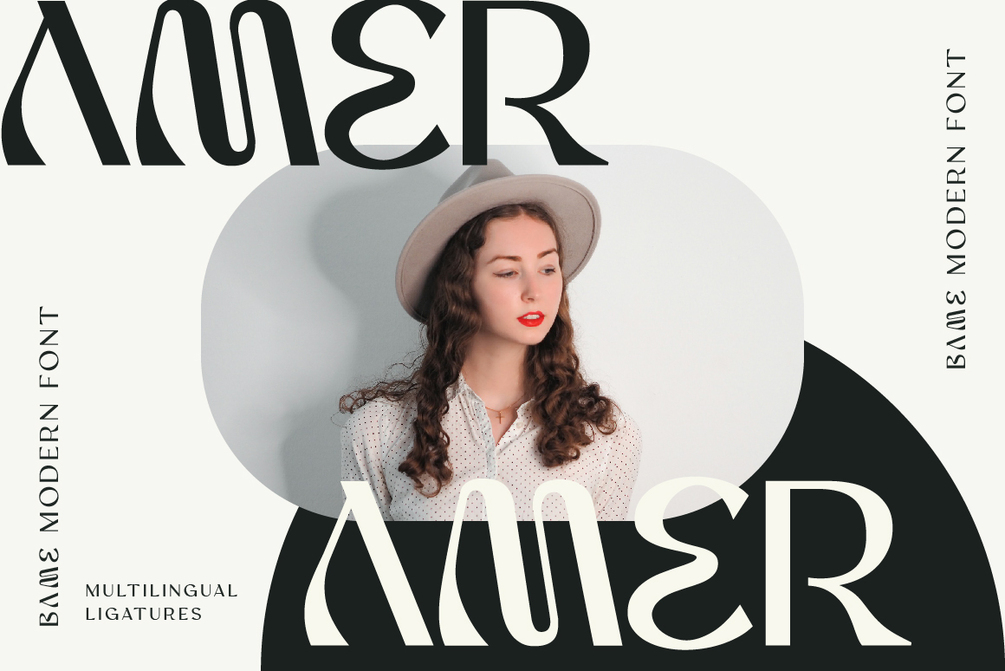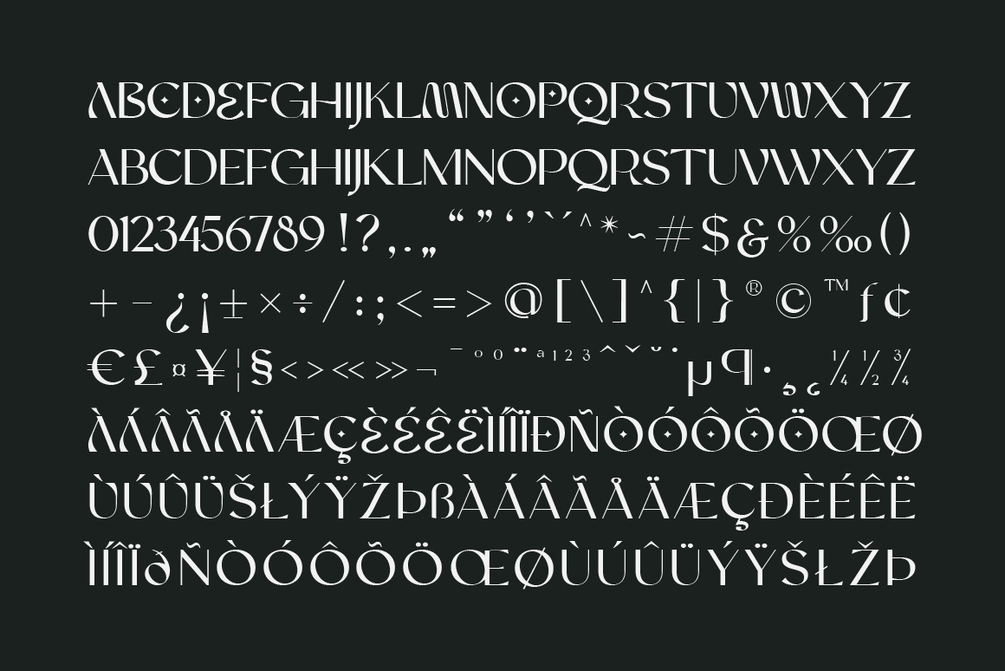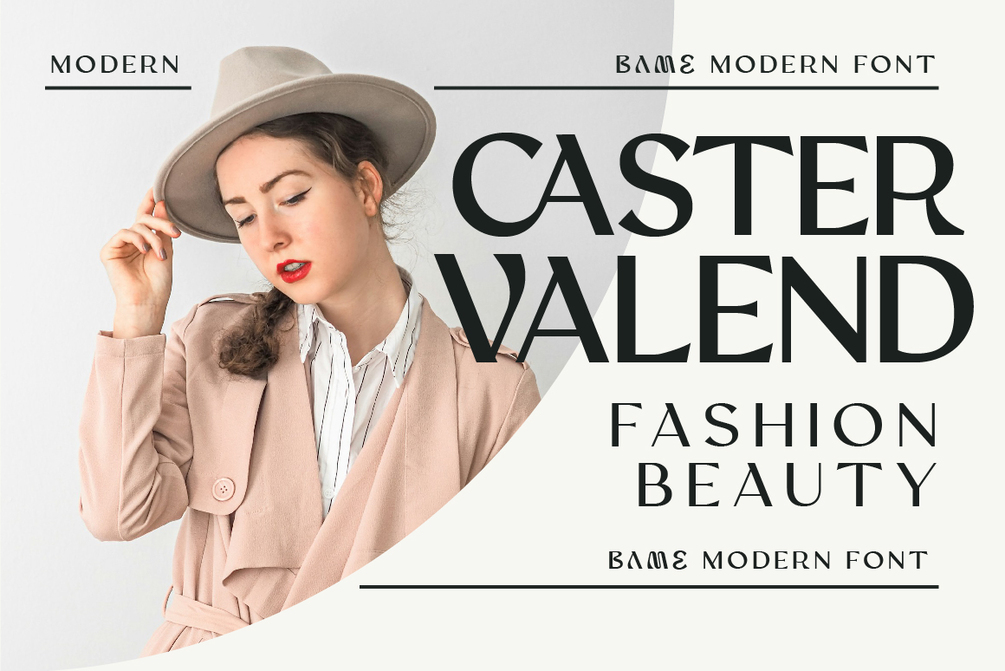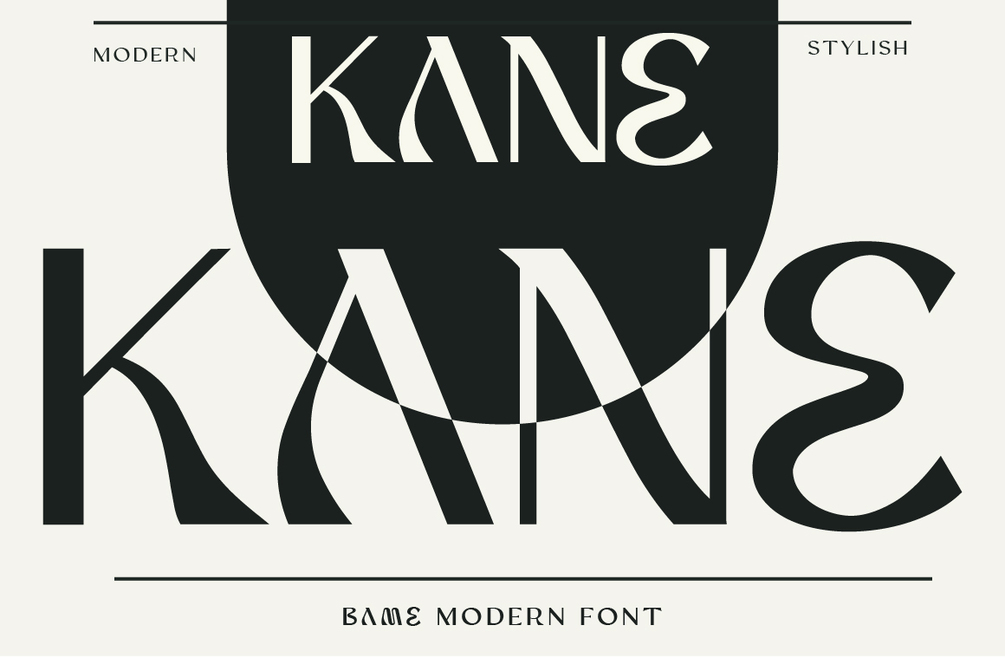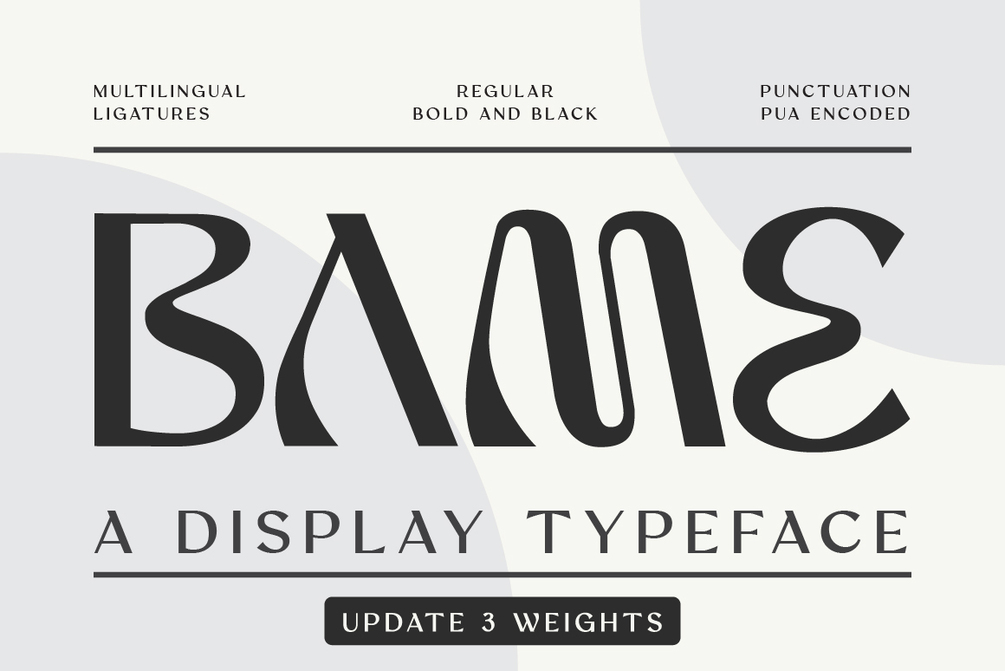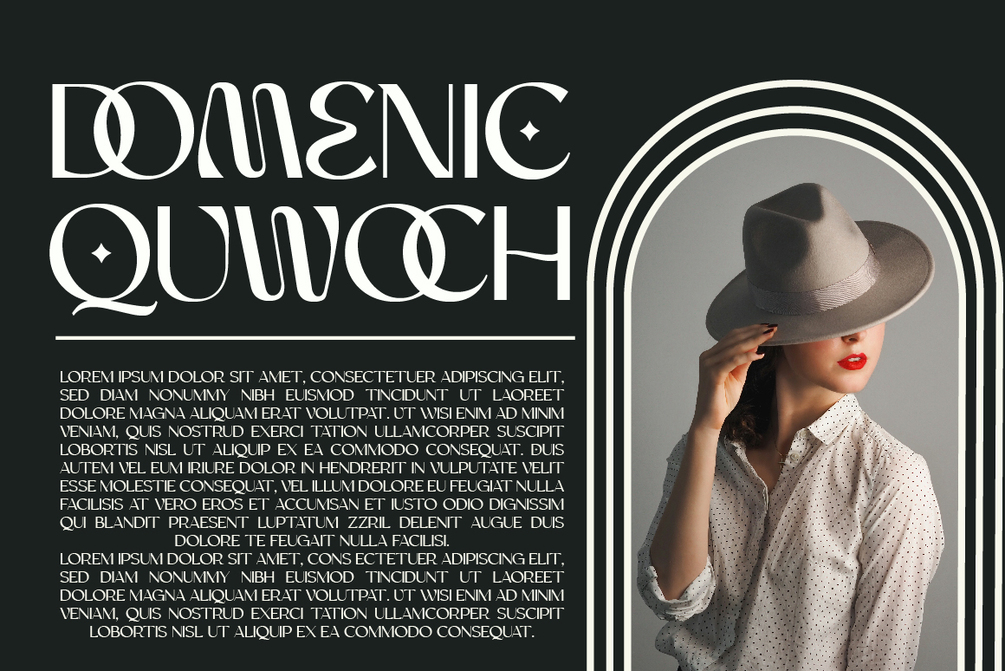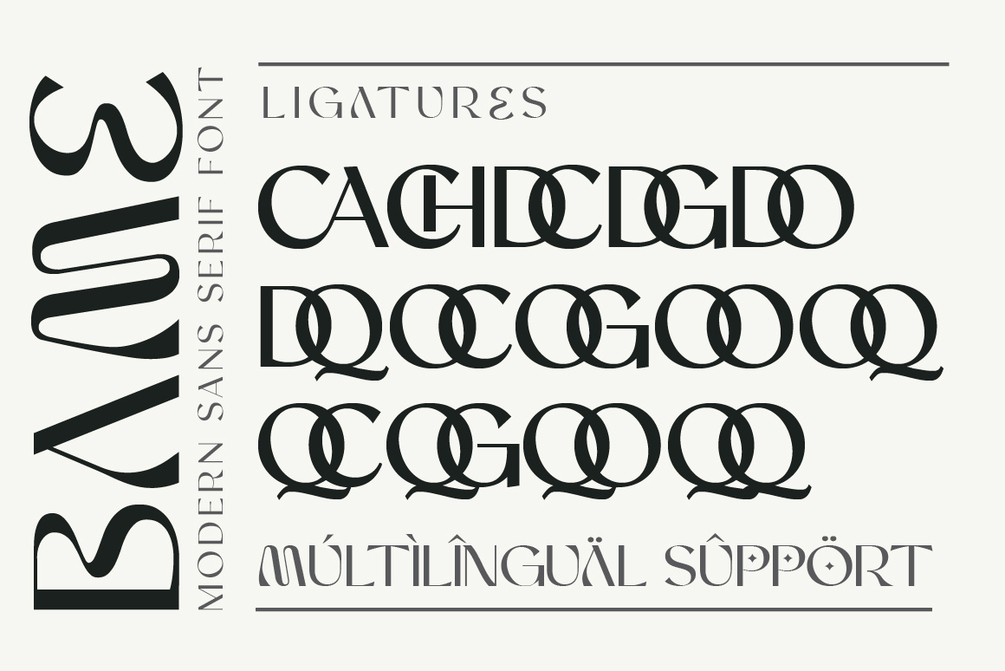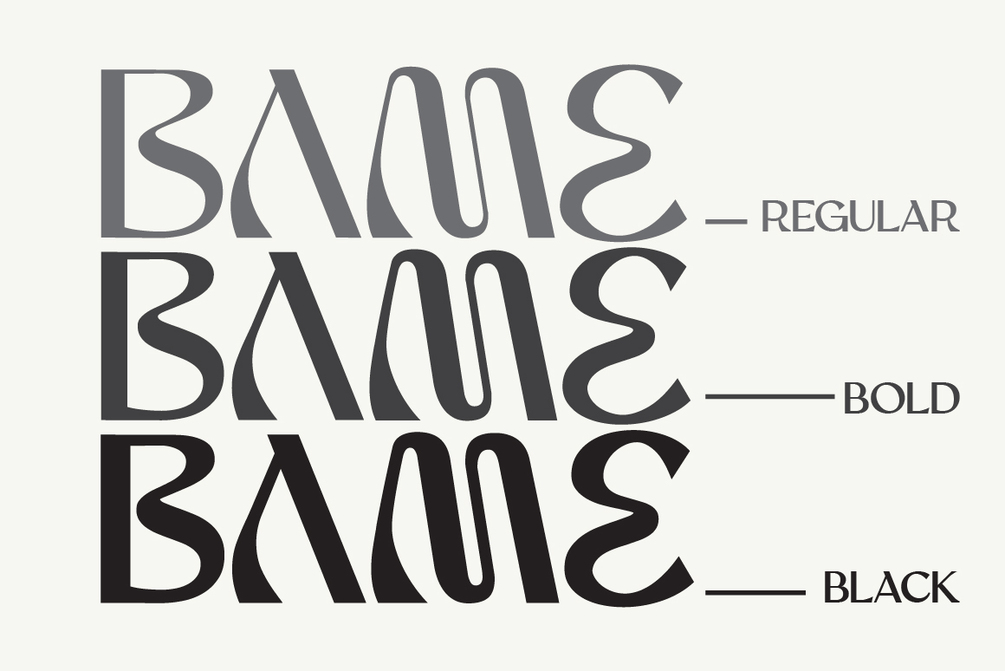
Bame
BAME is a display typeface. Has a distinct curve and a lively personality. Ideal for projects that require a distinct personality.
• Regular And Bold
• Stylish & Standard Caps
• Numbers & Punctuation
• 14 Ligatures